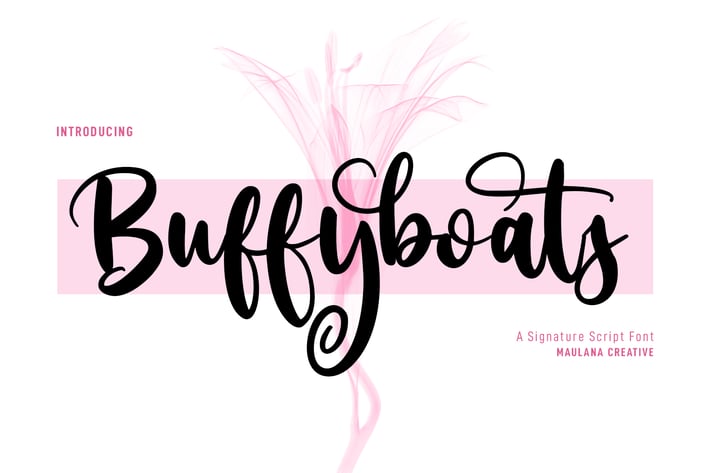
Buffyboats Handwriten Script Font
Buffyboats is a fancy handwritten script font. With bold contrast stroke, fun character with a bit of ligatures and alternates. To give you an extra creative work. Buffyboats font support multilingual more than 100+ language. This font is good for logo design, Social media, Movie Titles, Books Titles, a short text even a long text letter and good for your secondary text font with sans or serif. Make a stunning work with Buffyboats font.